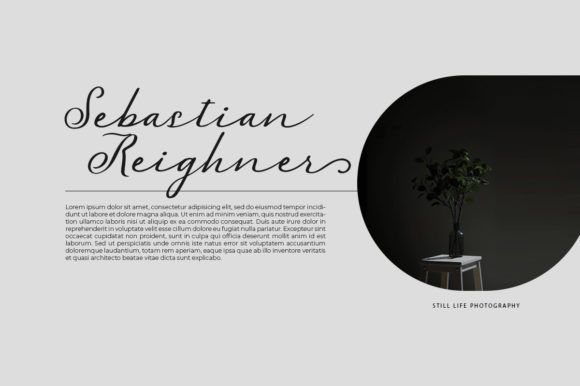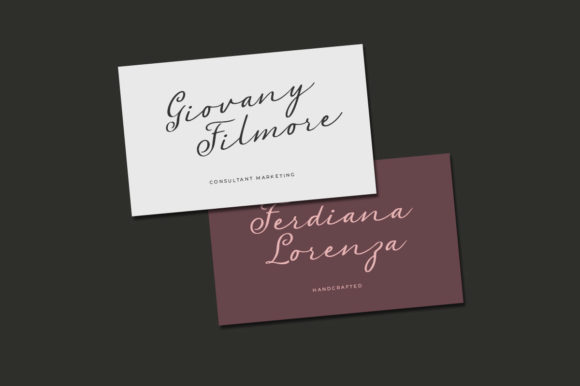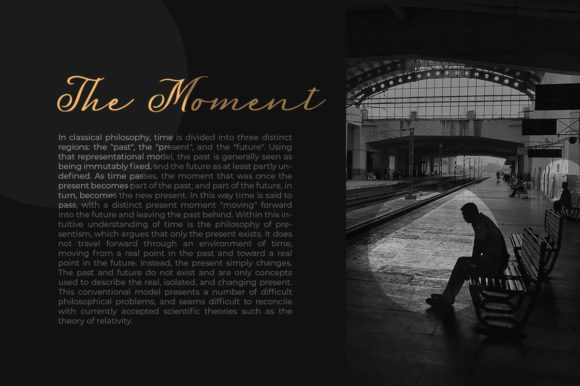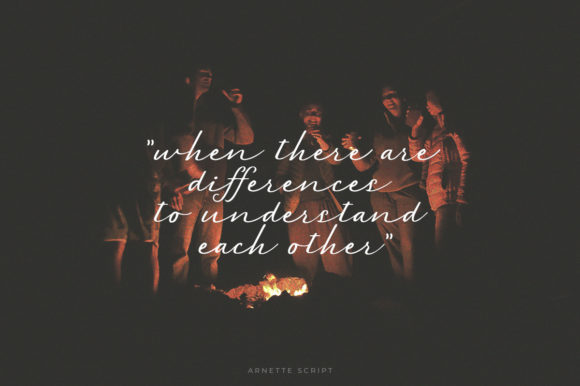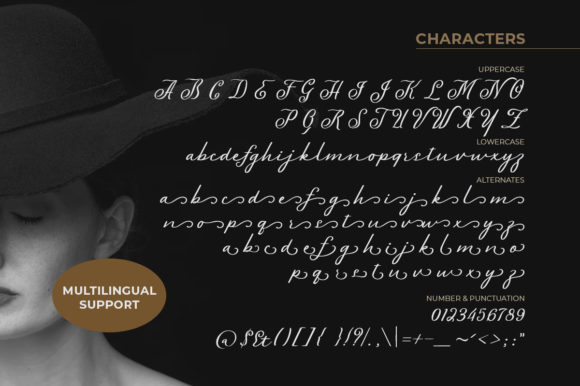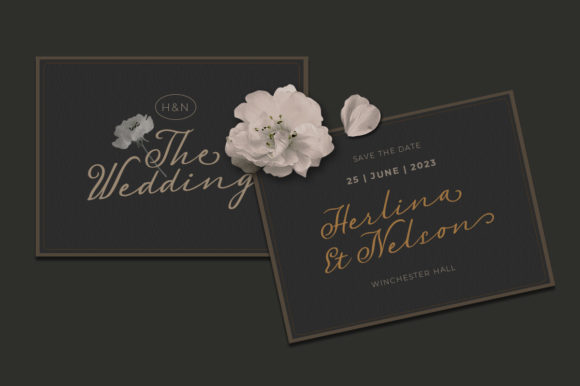
Introducing Arnette Script Font: Elevate Your Designs with Elegance and Whimsy
In the world of typography, a font can make all the difference in the aesthetic and tone of a design. For those seeking an elegant, beautiful, and whimsical script font, look no further than Arnette Script. This versatile font is perfect for a wide range of creative projects, from logos and wedding invitations to headings, t-shirts, and more.
The Characteristics of Arnette Script Font
Arnette Script is a meticulously crafted font that exudes sophistication and charm. Its elegant strokes and whimsical flair make it an ideal choice for designers and crafters looking to add a touch of personality to their work. The font’s unique characteristics include:
- Elegant and Beautiful: Arnette Script boasts a refined and luxurious feel, perfect for high-end branding, wedding invitations, and other special occasions.
- Whimsical: The font’s playful and carefree nature makes it suitable for more casual designs, such as t-shirts, posters, and social media graphics.
- Versatile: Arnette Script can be used for a wide range of applications, including logos, headings, signage, labels, and more.
Uses for Arnette Script Font
The versatility of Arnette Script font makes it an excellent addition to any designer’s toolkit. Here are some ideas for using this beautiful font:
- Logos: Create a lasting impression with a custom logo featuring Arnette Script. Perfect for businesses, events, or personal branding.
- Wedding Invitations: Add a touch of elegance and romance to your wedding stationery with Arnette Script.
- Headings: Elevate your blog posts, articles, or website headers with a stylish and eye-catching font.
- T-Shirts: Design unique and stylish apparel with Arnette Script, perfect for fashion brands, events, or personal use.
- Letterhead: Create professional and sophisticated letterhead for business correspondence.
- Signage: Make a statement with eye-catching signage featuring Arnette Script, ideal for events, businesses, or public displays.
- Labels: Add a personal touch to product labels, gift tags, or address labels with this charming font.
- News and Posters: Create engaging and informative posters, newspapers, or magazines with Arnette Script.
- Badges: Design custom badges for events, conferences, or businesses with a professional and stylish font.
Why Choose Arnette Script Font?
With so many fonts available, why choose Arnette Script? Here are just a few reasons why designers and crafters love this elegant and whimsical script font:
- Unique and Memorable: Arnette Script’s distinctive style ensures your designs stand out from the crowd.
- Easy to Read: The font’s clear and legible design makes it perfect for body text, headings, and more.
- Highly Versatile: Use Arnette Script for a wide range of applications, from digital designs to print materials.
- Timeless Appeal: The font’s classic and elegant design ensures it will remain stylish for years to come.
Arnette Script font is a beautiful and versatile addition to any designer’s toolkit. Its elegant and whimsical nature makes it perfect for a wide range of creative projects, from logos and wedding invitations to headings, t-shirts, and more. With its unique characteristics, ease of use, and timeless appeal, Arnette Script is sure to become a favorite among designers and crafters.